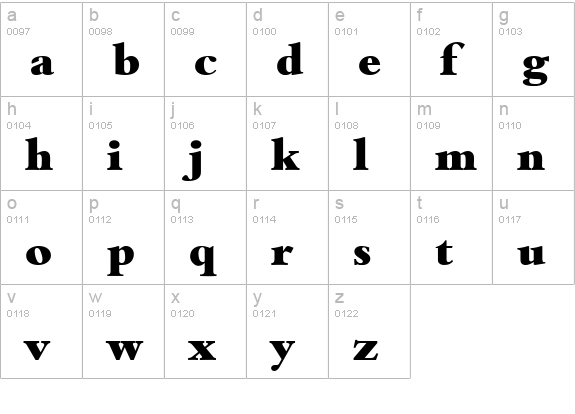
Schole Display SSi Font Details
Schole Display SSi font is a stunning and elegant typeface that will elevate any project to new heights. Its unique and intricate letterforms exude a sense of sophistication and professionalism, making it the perfect choice for a wide range of design applications. This font is a true work of art, meticulously crafted to ensure every curve and line is perfectly balanced. The distinctive serifs add a touch of classic elegance, while the bold strokes create a strong and impactful presence. Whether used for headlines, logos, invitations, or any other creative endeavor, Schole Display SSi font will make a lasting impression. One of the best things about this font is that it is absolutely free. Yes, you read that right! Schole Display SSi font is freely available to download at FontsMarket.com. So, you can enjoy the beauty and versatility of this font without any financial barriers. Downloading and installing Schole Display SSi font is a breeze, and once you have it in your font library, the possibilities are endless. Create eye-catching designs, captivate your audience, and make a statement with the timeless elegance of Schole Display SSi font. Don't miss out on this amazing opportunity to enhance your projects with a high-quality font that is both visually stunning and freely available. Visit FontsMarket.com today and download Schole Display SSi font to elevate your designs to a whole new level.